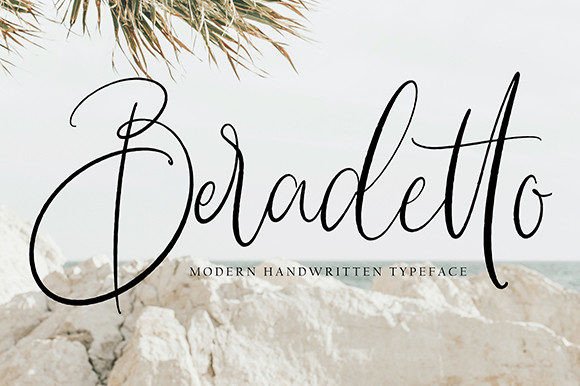
Introducing Beradetto Font: The Ultimate Modern Handwritten Font
In the world of typography, fonts play a crucial role in conveying messages, expressing emotions, and creating visual identities. Among the numerous fonts available, Beradetto Font stands out as a beautiful and modern handwritten font perfect for a wide range of design applications. In this article, we’ll explore the features, benefits, and uses of Beradetto Font, and why it’s a great addition to your font library.
What is Beradetto Font?
Beradetto Font is a modern handwritten font designed to add a touch of elegance and sophistication to your designs. Its unique and stylish letterforms make it perfect for creating visually appealing quotes, logos, blog headers, posters, branding materials, letters, invitations, stationery, and more.
Benefits of Using Beradetto Font
- Versatility: Beradetto Font is suitable for a wide range of design applications, from digital to print.
- Uniqueness: Its modern and stylish design sets it apart from traditional fonts.
- Elegance: Beradetto Font adds a touch of sophistication and elegance to your designs.
- Readability: Its clear and legible letterforms ensure that your message is conveyed effectively.
Creative Uses of Beradetto Font
Beradetto Font is a versatile font that can be used in various design projects, including:
- Quotes: Add a touch of elegance to your inspirational quotes and sayings.
- Logos: Create a unique and memorable logo for your brand or business.
- Blog Headers: Use Beradetto Font to create eye-catching blog headers that grab attention.
- Posters: Design stunning posters that showcase your message in a stylish and modern way.
- Branding: Use Beradetto Font to create a consistent visual identity for your brand.
- Letters: Add a personal touch to your letters and correspondence.
- Invitations: Create beautiful and elegant invitations for special occasions.
- Stationery: Use Beradetto Font to design stylish and modern stationery.
Cool and Stylish Design
Beradetto Font boasts a cool and stylish design that will make your designs stand out. Its modern and elegant letterforms are perfect for creating visually appealing designs that capture attention. Whether you’re designing for digital or print, Beradetto Font is sure to impress.
Why Beradetto Font is a Great Asset to Your Fonts Library
Beradetto Font is a valuable addition to your font library, providing a unique and stylish option for your design projects. Its versatility, elegance, and readability make it a go-to font for various design applications. With Beradetto Font, you’ll be able to:
- Enhance your designs: Add a touch of elegance and sophistication to your designs.
| Font Name | Beradetto Font |
| Author | Pineungtype & Missinklab |
In conclusion, Beradetto Font is a beautiful and modern handwritten font that’s perfect for a wide range of design applications. Its unique and stylish design, versatility, elegance, and readability make it a great asset to your font library. Whether you’re a designer, artist, or simply someone who appreciates great typography, Beradetto Font is sure to impress.